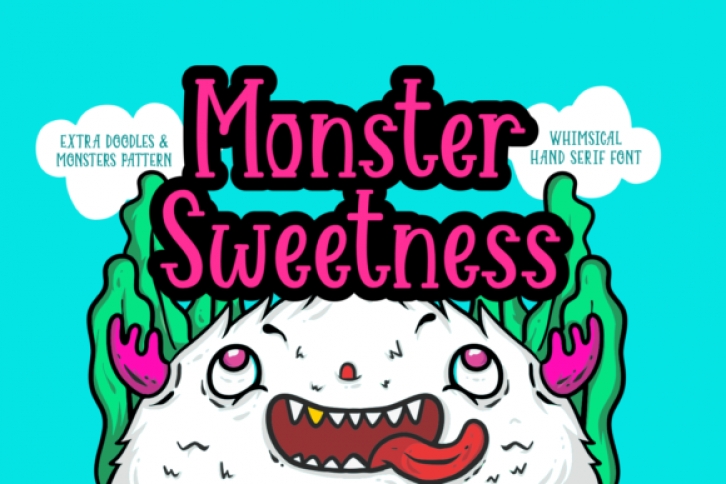
This cute hand crafter serif funt is playful and great for titles and headlines.
It’s elegant and very legible. Making it great for kids-related designs such as birthday invites, and much more.